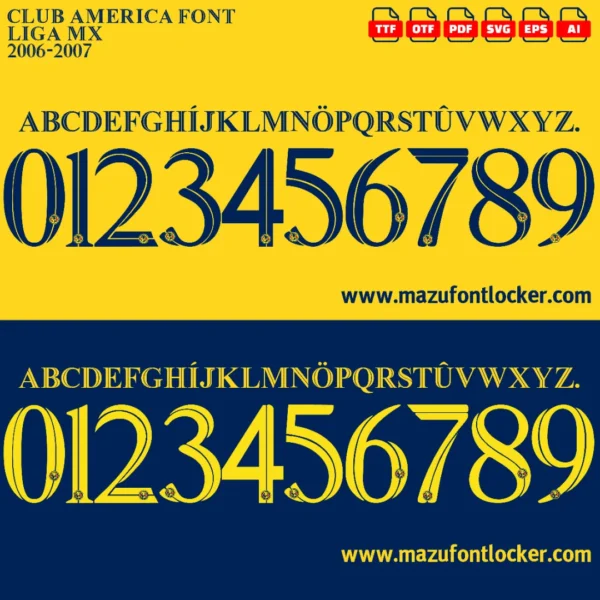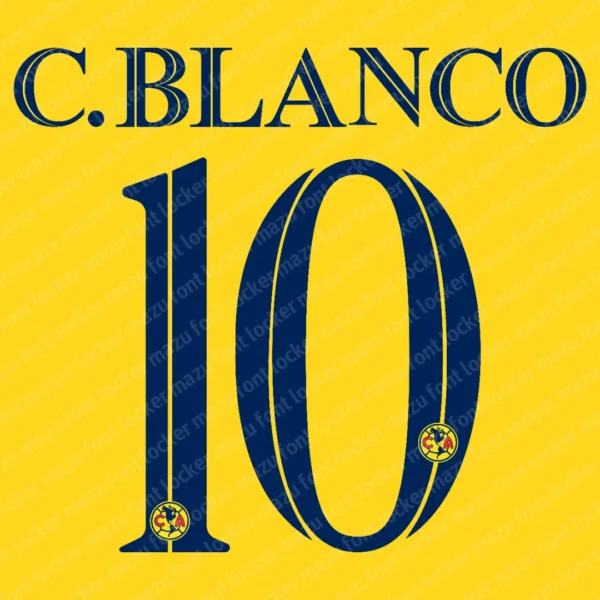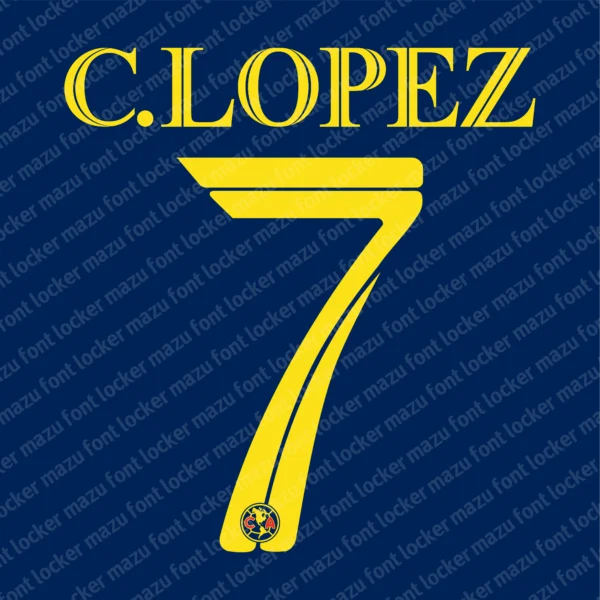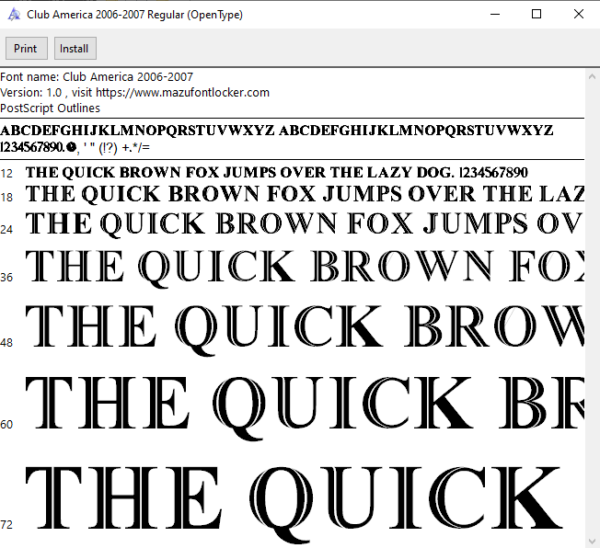
Club América 2006-2007 Font Vector – Stunning Las Águilas Legacy Masterpiece
This font captures the commanding, legendary, fearless, and ultra-premium lettering that perfectly embodies Club América’s golden heritage, championship mentality, and passionate fan culture, delivering unmatched authenticity, dynamic energy, timeless Liga MX style, and elite-quality craftsmanship for premium jersey mockups, football designs, striking sports visuals, dedicated fan creations, and professional branding projects.
Club América 2006-2007 Font Vector – Stunning Las Águilas Heritage Typeface
The Club América 2006-2007 Font Vector is a premium typeface that accurately recreates the official match lettering worn by Club América during the memorable 2006-2007 season. This high-quality vector font kit captures the distinctive typography featured on Las Águilas’ iconic jerseys, perfectly complementing the club’s legendary cream-and-blue identity that has made Club América one of the biggest and most successful clubs in North American football.
Designed for professional designers, football enthusiasts, and passionate Club América supporters, the Club América 2006-2007 Font Vector delivers exceptional authenticity for creating realistic jersey mockups, football merchandise, social media graphics, match posters, and custom fan artwork. It faithfully preserves one of the club’s classic Liga MX namesets from the mid-2000s.
This font stands out thanks to its precise vector construction and authentic club styling. Every character has been carefully recreated to match the official shirt lettering used throughout the 2006-2007 season. Whether you’re producing realistic kit templates or creating nostalgic football artwork, the Club América 2006-2007 Font Vector delivers a genuine professional appearance.
The lettering featured in the Club América 2006-2007 Font Vector combines bold geometric shapes with clean sporting proportions. The result is a highly readable and timeless design that reflects the prestige, tradition, and winning mentality synonymous with Las Águilas.
The numerals feature balanced curves, sharp edges, and excellent spacing for maximum readability. Built entirely as scalable vectors, every number remains crisp for jersey customization, digital graphics, posters, and large-format printing.
- Includes authentic club crest glyph placement beneath player numbers
Club América 2006-2007 Season
The 2006-2007 season was another important chapter in Club América’s rich history as Las Águilas competed in the Liga MX, domestic cup competitions, and international tournaments. Wearing their iconic cream home kit, the club continued to build upon its reputation as one of Mexico’s most decorated football institutions.
With a squad featuring experienced Mexican internationals and talented foreign stars, Club América remained one of the league’s biggest attractions. The official 2006-2007 nameset remains a favorite among collectors and football fans who appreciate classic Liga MX jerseys.